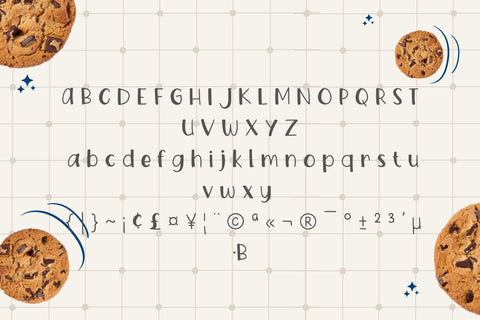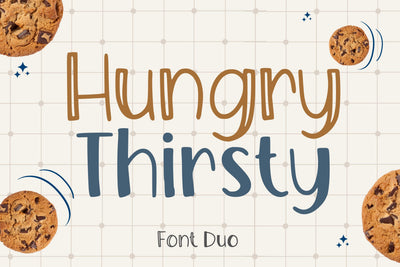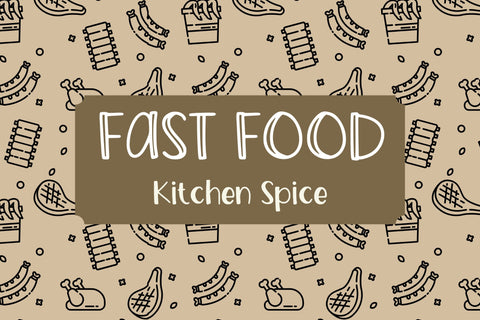
Hungry Thirsty Font Duo
This font duo with modern handwritten look design styles, available on regular and outline typeface. Hungry is perfect for branding projects, logos, wedding designs, social media posts, advertisements, product packaging, product designs, label, photography, watermark, invitation, stationery, and any projects that need handwriting taste.